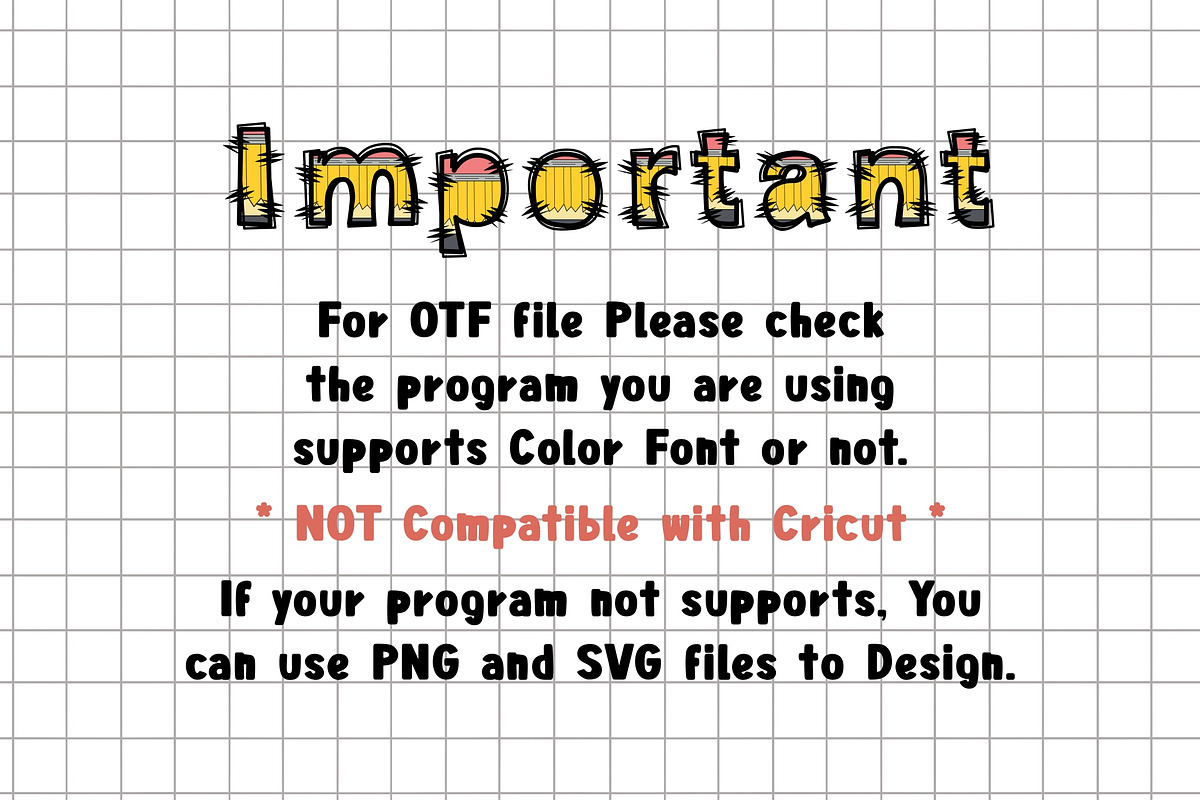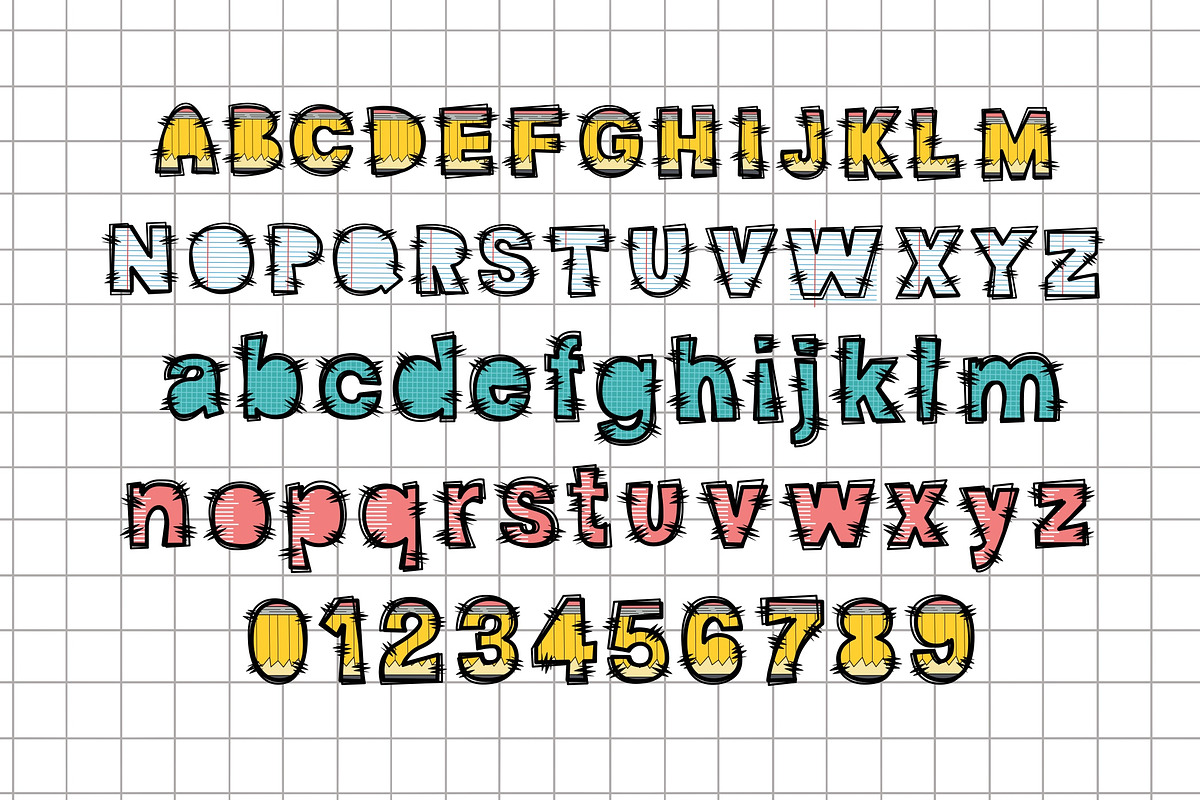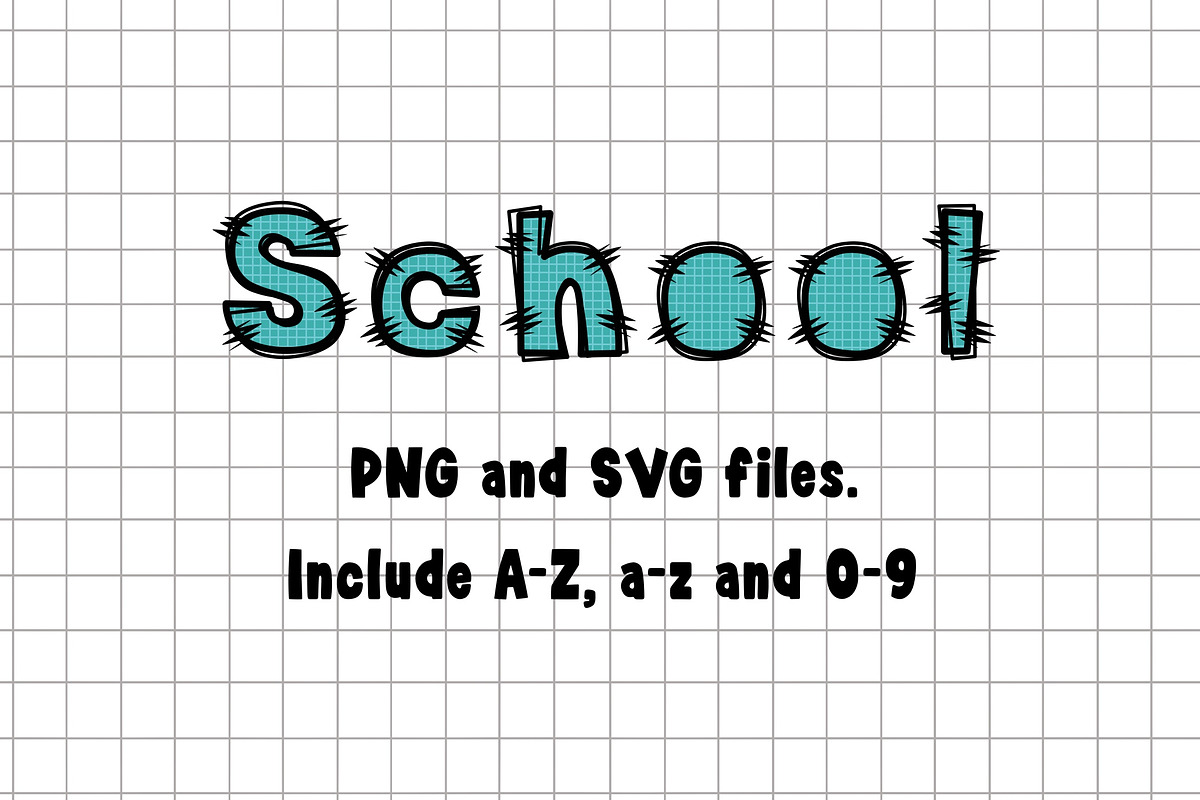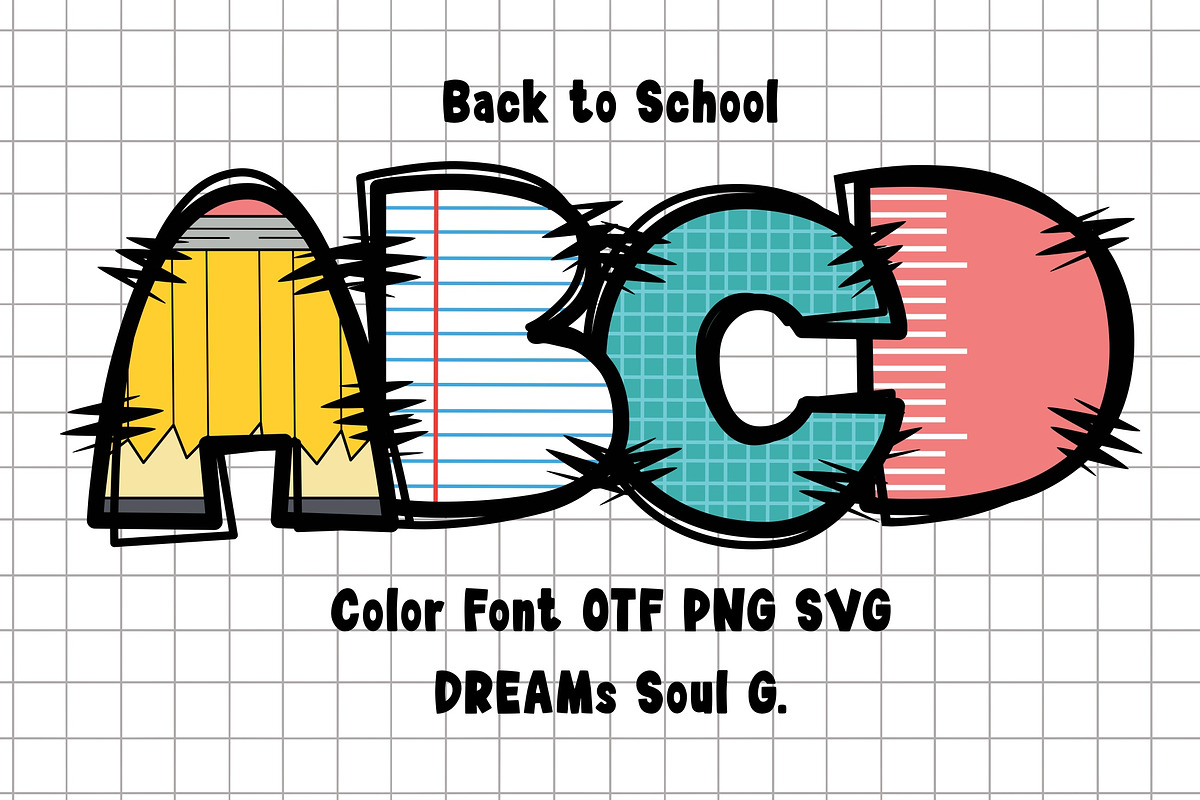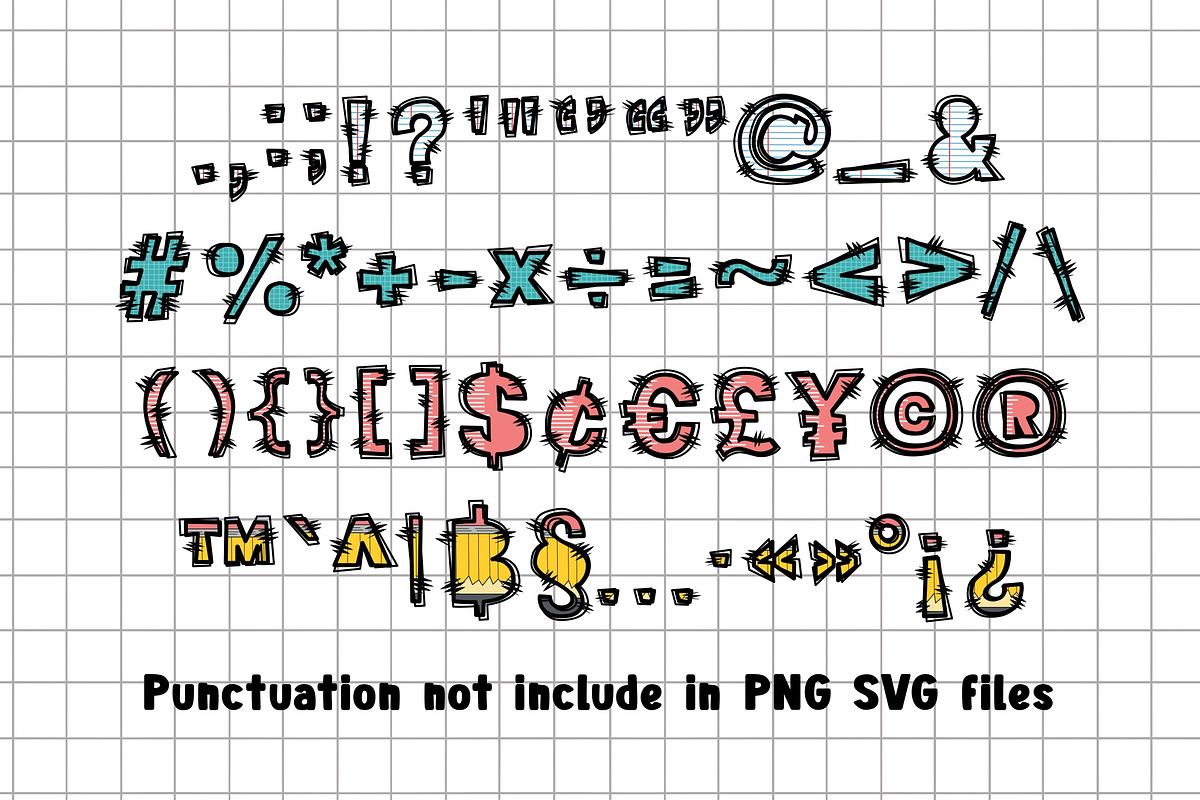
Back to School Breath OTF PNG SVG
A playful color font featuring letters designed with pencil, notebook, cutting mat, and ruler patterns. Perfect for back-to-school projects, classroom decor, banners, stickers, invitations, and educational materials.